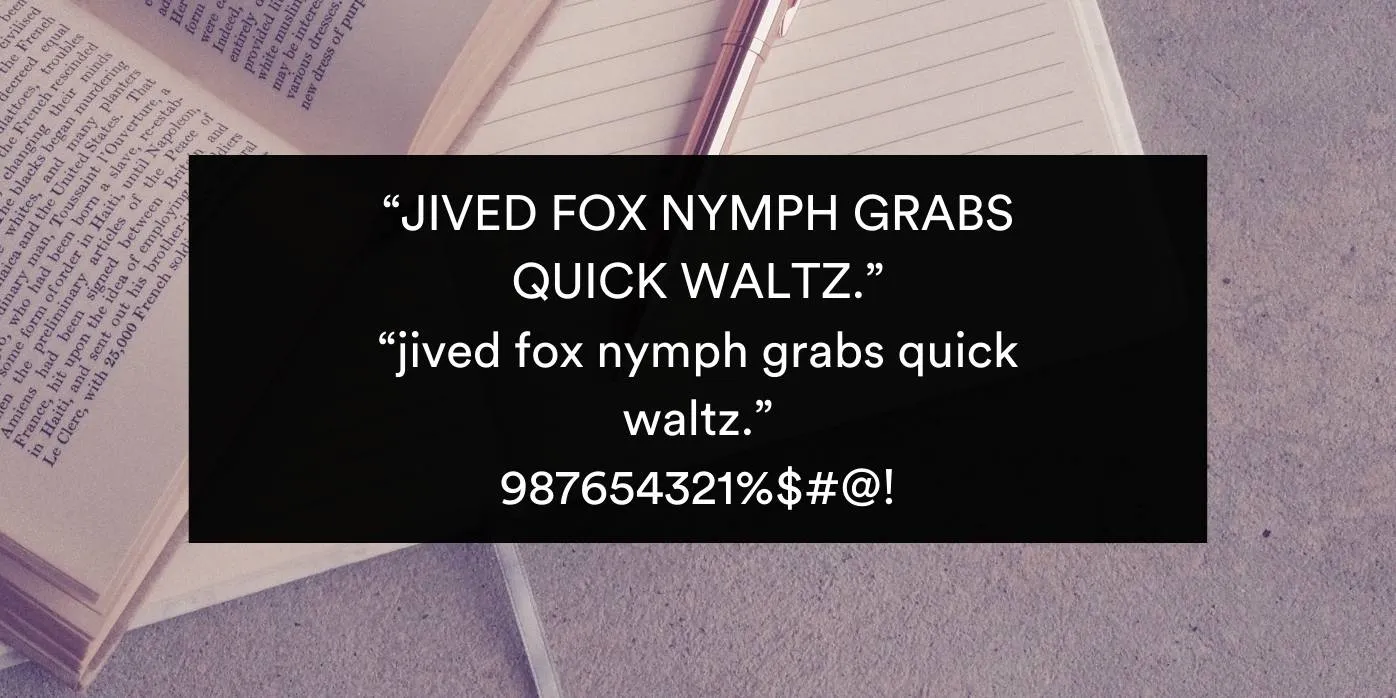
Circular Book Font
We are sharing an unusual sans serif typeface that’s known as the Circular Book font and has a place in the textual style family named Circular text style. The generator of this amazing design may be a Swiss realistic architect Laurenz Brunner who has been released in 2013 through Lineto sort foundry. This text style family is based on geometric collections but the circular shape of the typeface is exceptionally amazing that gives an attractive look. This typeface is very similar to the haboro sans font.
The lowercase letters of this typeface are exceptionally one of a kind which makes it convenient and interesting among all other geometric sans serifs such as Century Gothic font. This brilliant typeface has TrueType and OpenType highlights alongside special glyphs and 160 characterized characters counting capitalized, lowercase, common highlighting marks, numbers, money images, geometric shapes, and numerous extraordinary characters that are movable on different designs. Usage There are a vast number of different places in which this textual style can be utilized such as motion picture blurbs, trade or welcome cards, promoting, websites, printing ventures, insignias, social media posts, pennants, brochure formats, subjects, labeling, Logos plans, Catalogs, Powerpoint introductions, menus, signage, and various realistic design projects. This typeface is additionally extraordinary to work for your features and titling for your websites, brands, and company profiles and we are beyond any doubt simply get the forte to your websites or brands after utilizing this text style.
The creator of this exceptional textual style could be Swiss architect Laurenz Brunner. What Is Circular Text style Utilized for? It is the most excellent text style that can use for your Websites and Headlines. You’ll make attractive symbol plans with the assistance of this beautiful text style.
You’ll be able to make more surprising plans like Book Covers, Brands, Titles, Blurbs, and numerous related things. Is there any comparable text style to the Circular Font? Yes, you’ll discover numerous options for this text style such as Montserrat Textual style, Averta Text style, TT Standards Textual style, and numerous more.